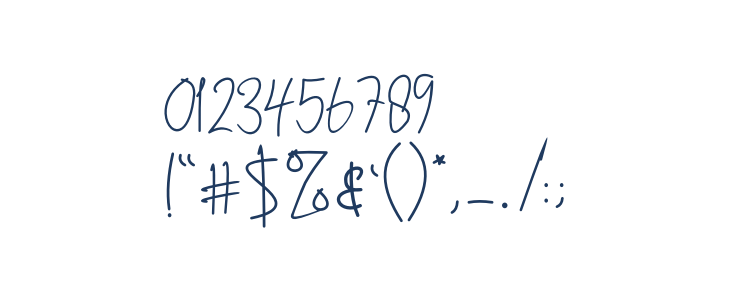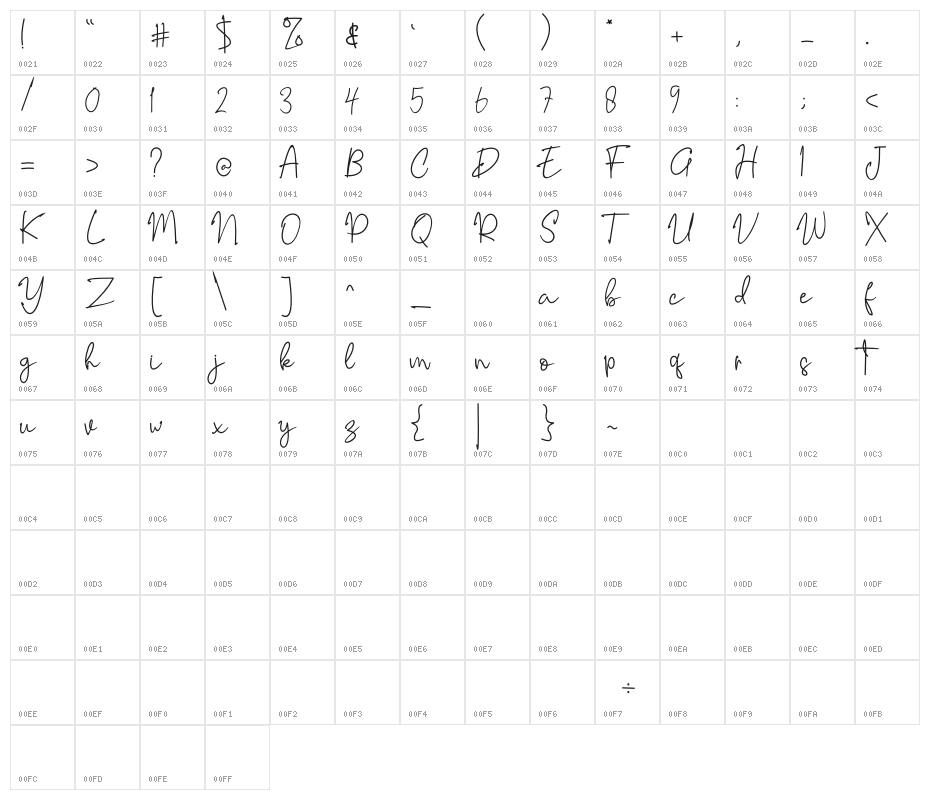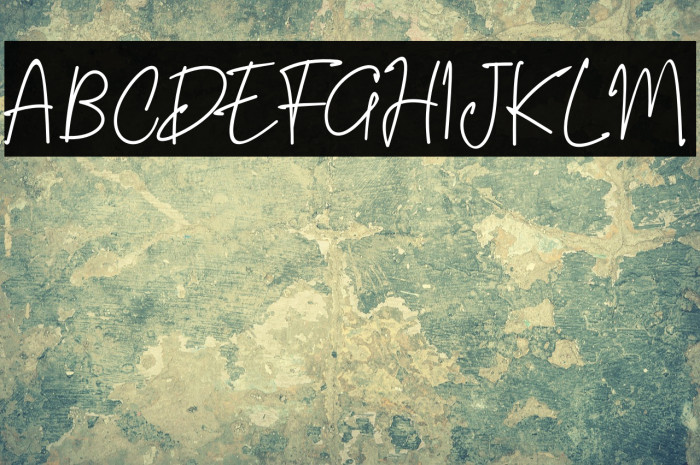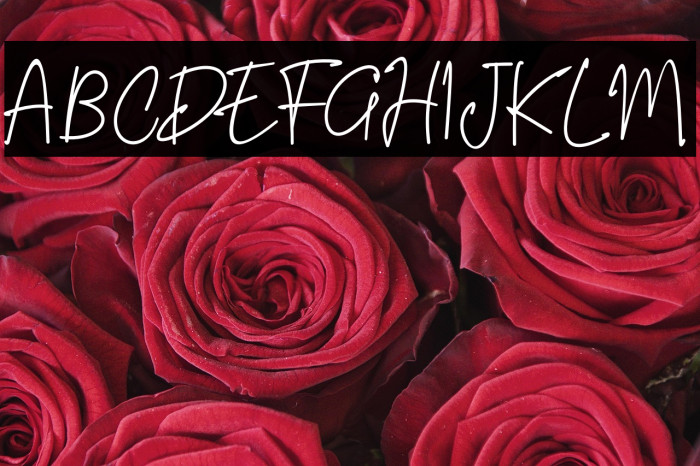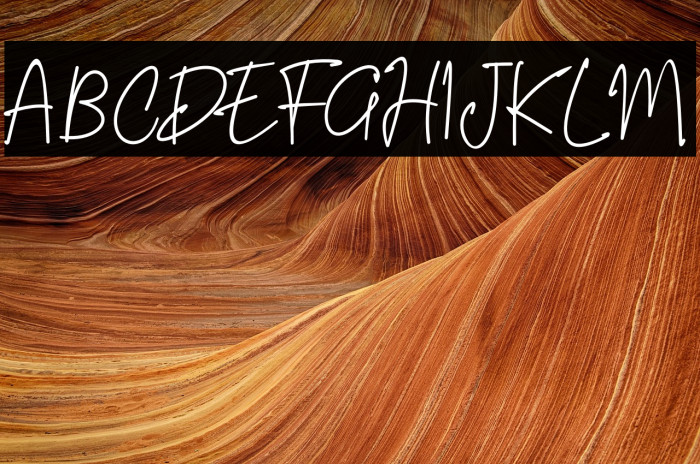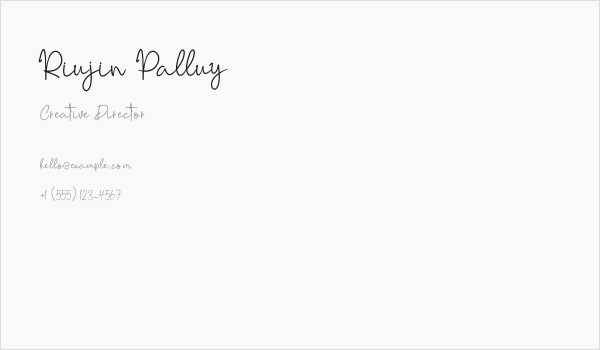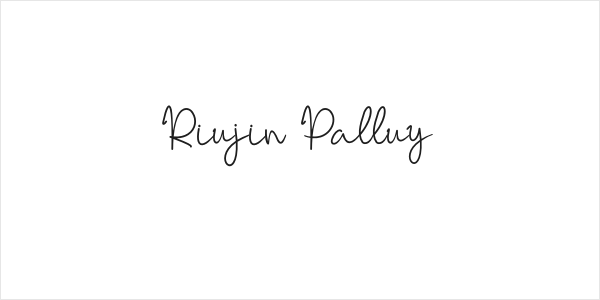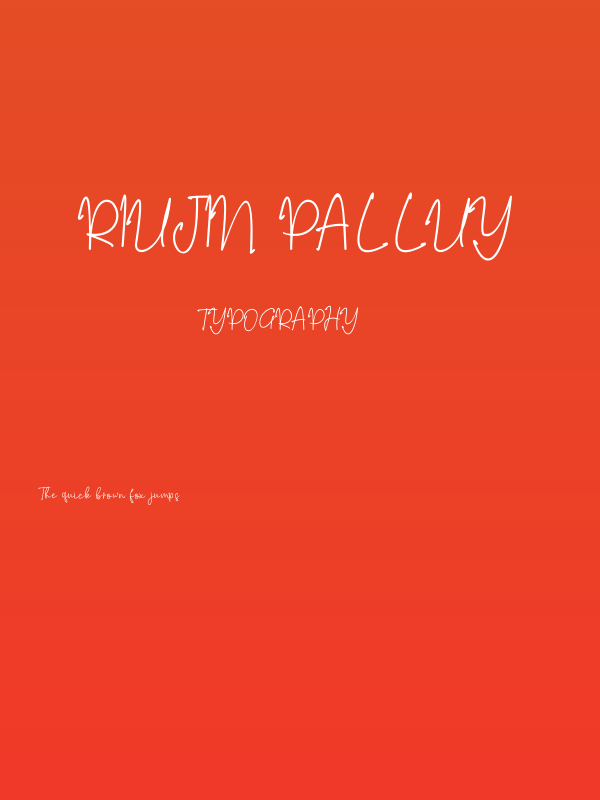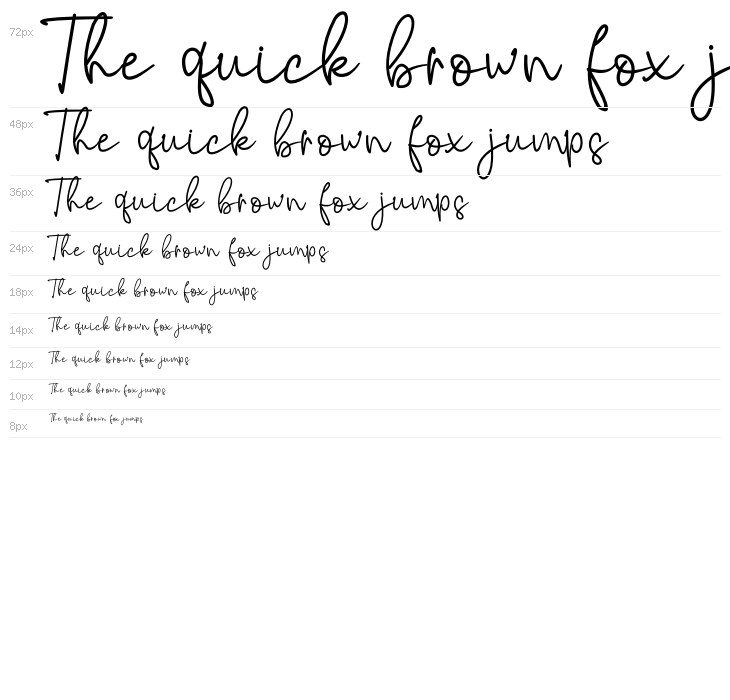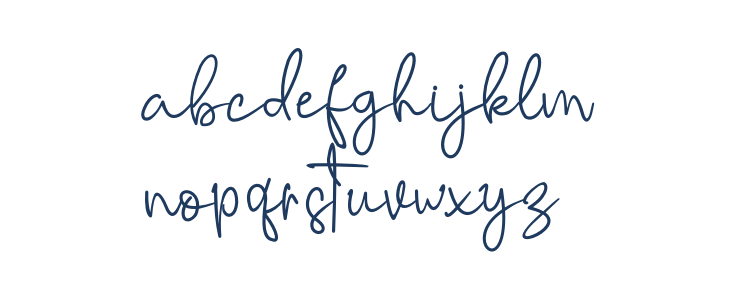
Riujin Palluy Font
Riujin Palluy Description
This font exhibits a casual and playful handwritten style, characterized by its fluid and dynamic strokes. The letters are slightly slanted, giving a sense of movement and spontaneity. Uppercase and lowercase letters maintain a consistent style, with some letters featuring loops and curves that add to the font's charm. The numbers and special characters are designed to match the overall aesthetic, ensuring a cohesive look across all text elements. This font is perfect for projects that require a personal touch or an informal vibe.
Overall StyleCasual
Use CaseHeadlines, Logos, Social Media
Proposed ProjectsIdeal for greeting cards, invitations, personal branding, and social media graphics.